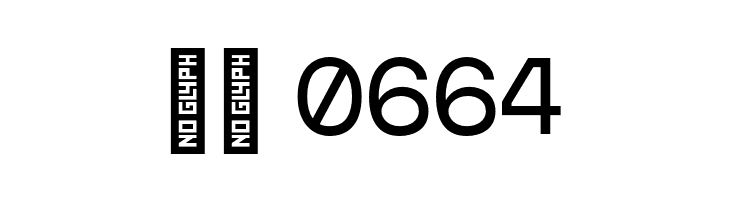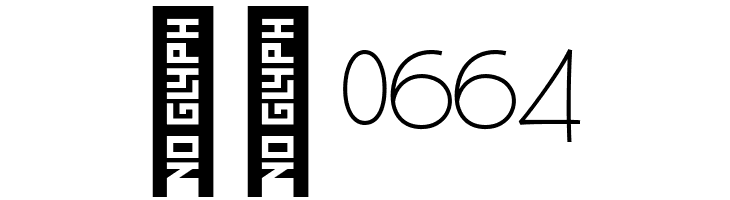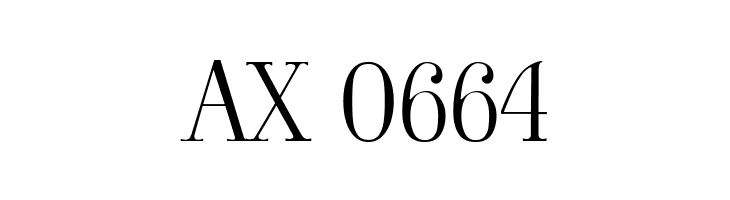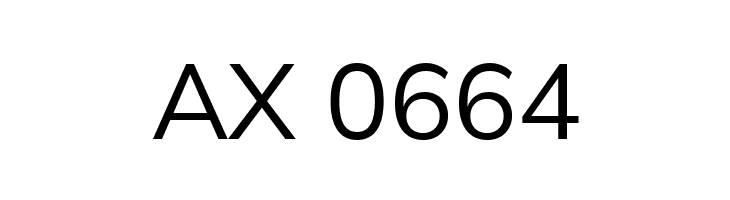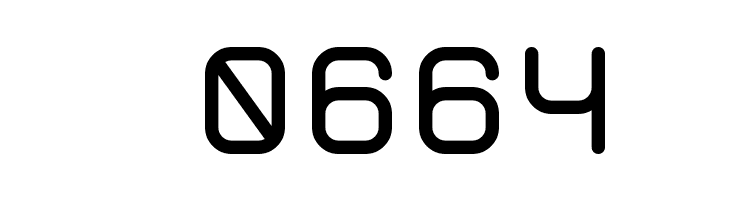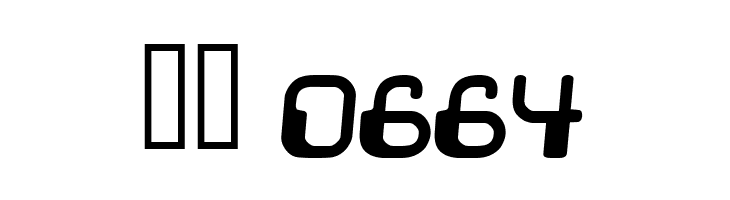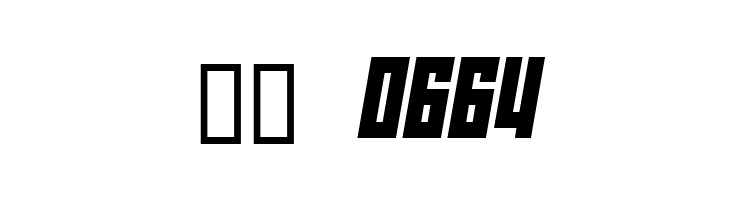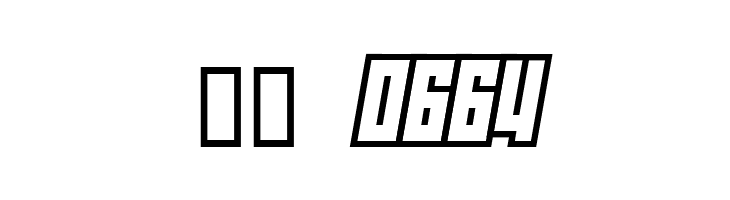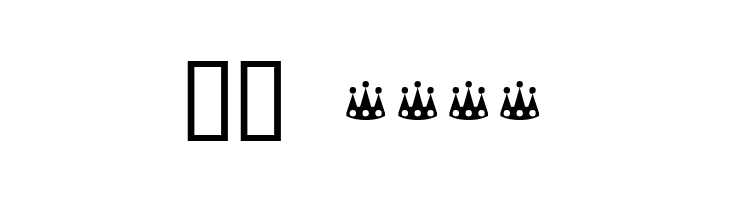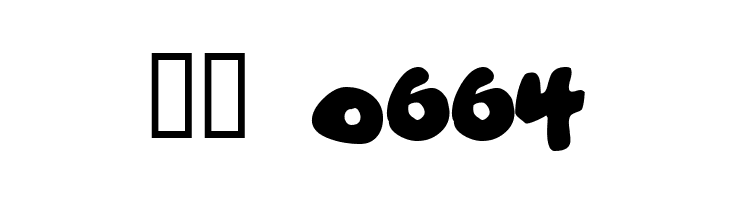
Bold, angular, and geometric font with a hand-drawn feel.
A Blackletter font with festive Christmas symbols, ideal for vintage holiday designs.
An elegant serif font with flowing lines and a classic aesthetic.
A playful, modern font with clean, geometric lines and a whimsical touch.
A bold, futuristic font with rounded edges and a sleek, modern design.
A bold, vintage-style font with a hand-drawn, textured appearance.
A bold, distressed font with a vintage, textured appearance.
A modern, geometric font with angular, tech-inspired characters.
A modern, clean sans-serif font with uniform stroke width and excellent legibility.
A bold, playful font with rounded, cartoonish characters.
A playful, outlined font with a cartoonish and lively style.
A modern sans-serif font with clean, geometric letterforms.
A bold, robust serif font with strong strokes and elegant curves.
A bold, italic serif font with strong strokes and elegant serifs.
A bold, classic serif font with strong, thick strokes and pronounced serifs.
A bold, italic serif font with strong strokes and classic elegance.
An elegant serif font with an italic slant and moderate contrast, perfect for classic and sophisticated designs.
A classic serif font with medium contrast and elegant proportions.
A bold, serif typeface with strong strokes and classic serifs.
A bold, classic serif font with pronounced serifs and a strong presence.
A classic serif font with strong strokes and medium contrast, ideal for elegant and readable text.
A semi-bold serif font with classic, elegant features and balanced proportions.
A classic serif font with a semi-bold weight, offering readability and a traditional yet modern look.
A classic serif font with semi-bold weight and italic style, offering elegance and readability.
A bold, geometric font with angular lines and circular dots, offering a modern and artistic style.
A geometric, angular font with hexagonal shapes and consistent line thickness.
A monospaced, pixelated font with a retro digital aesthetic.
A bold, geometric font with angular shapes and outlined characters.
A bold, angular font with a dynamic and modern style.
A modern, clean sans-serif font with excellent readability.